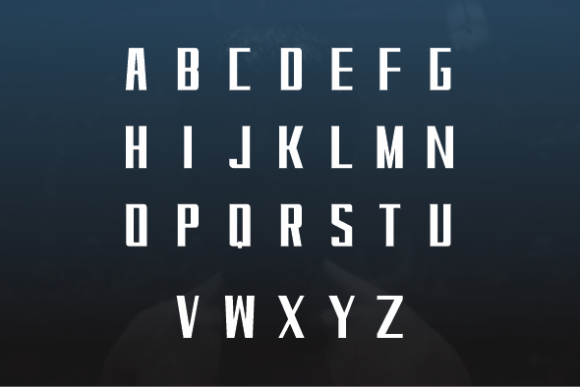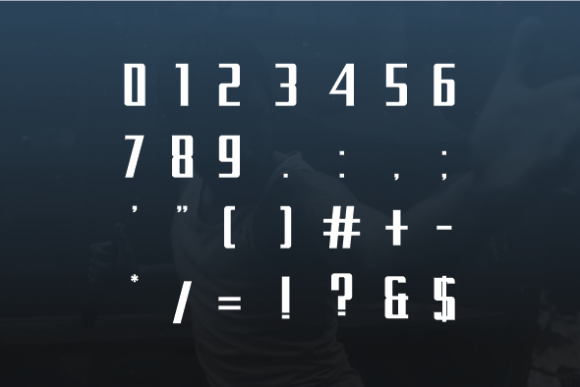
Introducing Breacher Font: The Ultimate Display Font for Bold Statements
Are you tired of using the same old fonts in your design projects? Look no further than Breacher Font, a cool, bold, and thick lettered display font that’s sure to make a statement. With its unique and eye-catching style, Breacher is the perfect addition to any project that requires a confident and attention-grabbing touch.
The Characteristics of Breacher Font
Breacher Font is a display font that’s designed to stand out from the crowd. Its bold and thick lettering makes it perfect for headlines, titles, and any other text that needs to grab attention. The font is clean and crisp, with a modern feel that’s sure to appeal to designers and crafters alike.
One of the key characteristics of Breacher Font is its versatility. It can be used in a wide range of design projects, from posters and flyers to logos and branding materials. Whether you’re working on a digital project or a print project, Breacher Font is the perfect choice.
Why Choose Breacher Font?
So why choose Breacher Font over other display fonts on the market? Here are just a few reasons why Breacher stands out from the crowd:
- Unique Style: Breacher Font has a unique and eye-catching style that’s sure to make your design project stand out.
- Bold and Thick Lettering: The font’s bold and thick lettering makes it perfect for headlines and titles.
- Versatile: Breacher Font can be used in a wide range of design projects, from digital to print.
- Easy to Read: Despite its bold style, Breacher Font is easy to read, even at smaller sizes.
Tips and Tricks for Getting the Most Out of Breacher Font
Here are a few tips and tricks for getting the most out of Breacher Font:
- Use it for Headlines: Breacher Font is perfect for headlines and titles, so use it to grab attention.
- Experiment with Colors: Try out different colors and gradients to add depth and interest to your design.
- Mix and Match: Combine Breacher Font with other fonts to create a unique and interesting design.
- Keep it Simple: Don’t be afraid to keep things simple and use Breacher Font on its own for a bold and striking design.
In conclusion, Breacher Font is a cool, bold, and thick lettered display font that’s perfect for designers and crafters looking to add a confident and attention-grabbing touch to their projects. With its unique style, versatility, and ease of use, Breacher Font is the ultimate display font for bold statements. So why not give it a try and see the results for yourself?
Breacher is a cool, bold and thick lettered display font. Add it confidently to your projects, and you will love the results.